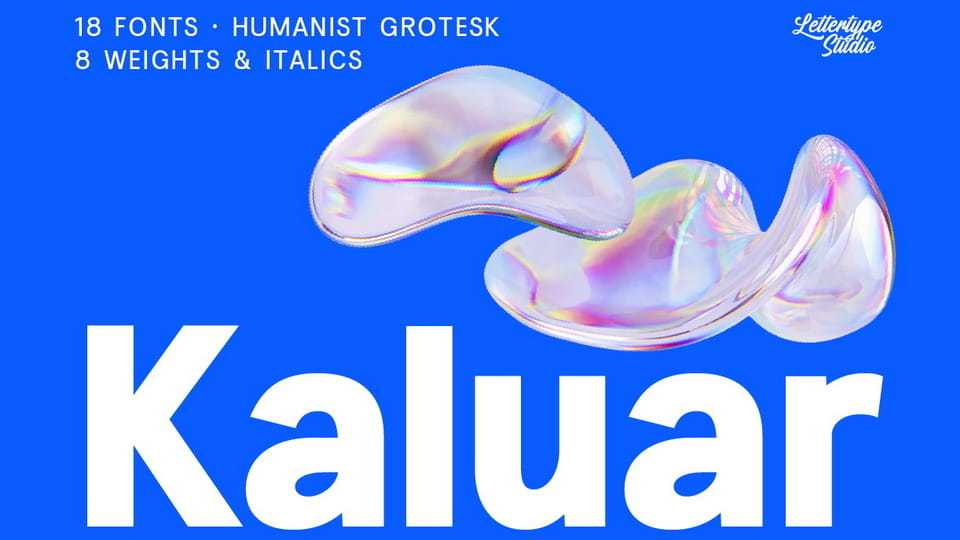
Download Kaluar font, a modern sans-serif typeface designed for clarity, balance, and extended readability. Positioned between humanist warmth and grotesk precision, Kaluar offers a neutral yet confident typographic voice
Designer: Lettertype Studio